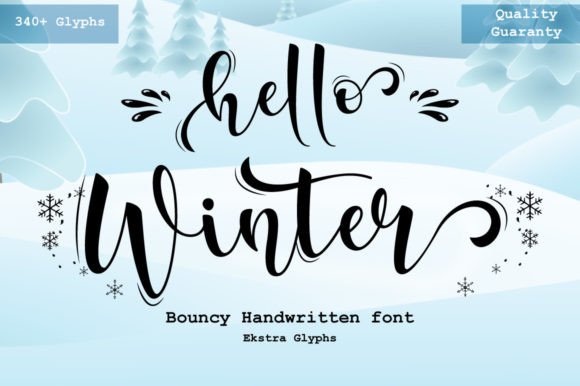
Hello Winter Font
Hello Winter is a bouncy script font with extra glyphs. It is sweet, playful, and authentic. Hello Winter is the perfect font for any playful project, from crafty design, quotes, stickers, t-shirt mock-ups, social media, stickers, sublimation, and many more.